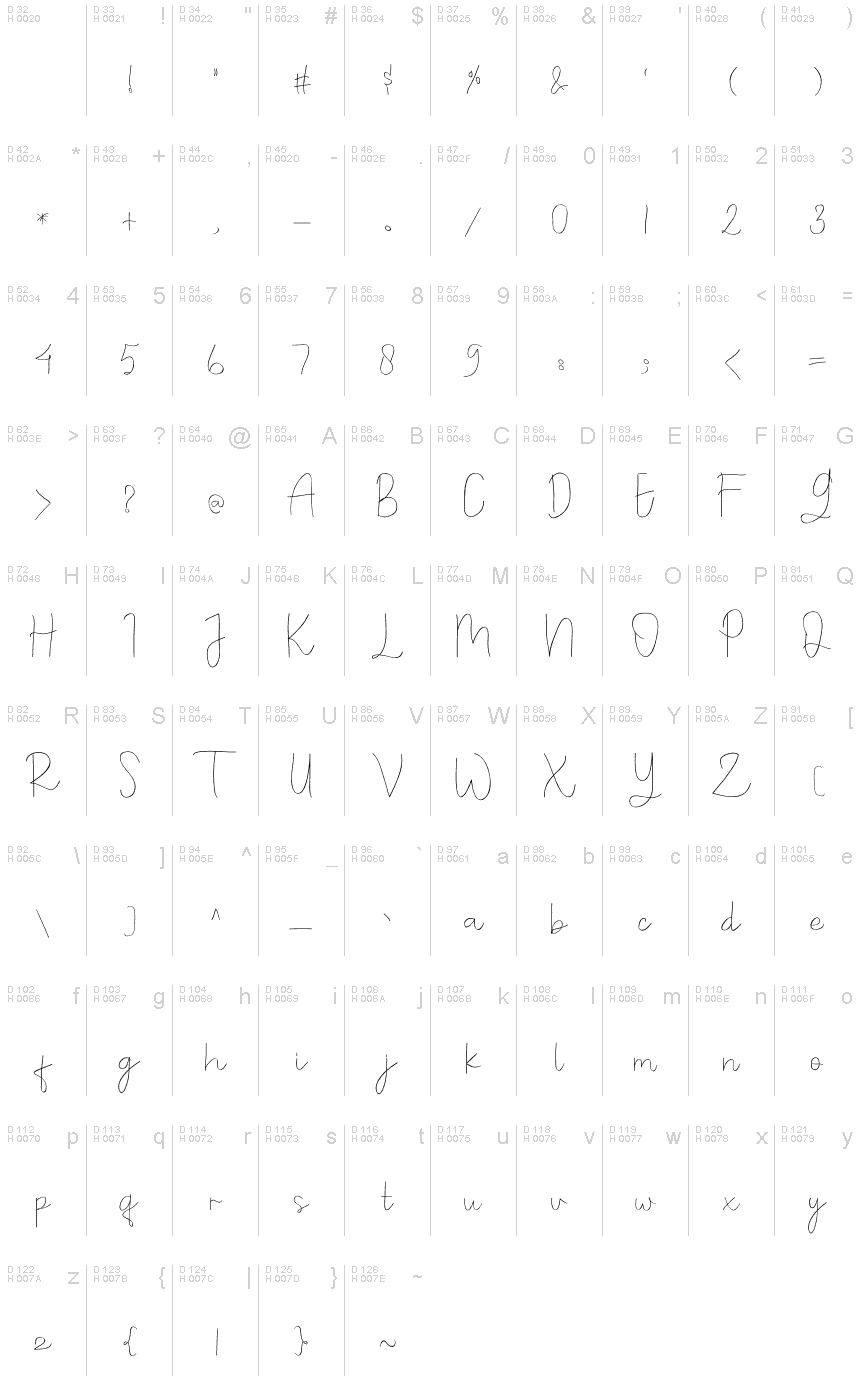
hitomi
Hitomi, a delightful creation by Stellaris Studio, is an ultra-light, handwritten font that adds a touch of elegance and whimsy to any project.
Its delicate strokes and graceful curves make it perfect for wedding invitations, greeting cards, and feminine branding materials. With its airy feel, Hitomi brings a sense of sophistication to fashion magazines and lifestyle blogs. Whether used for logos or social media graphics, this charming font effortlessly captures attention and evokes a sense of creativity.
Let Hitomi's unique style elevate your designs with its ethereal beauty.